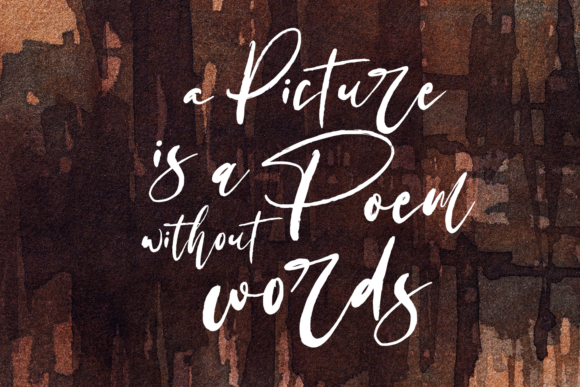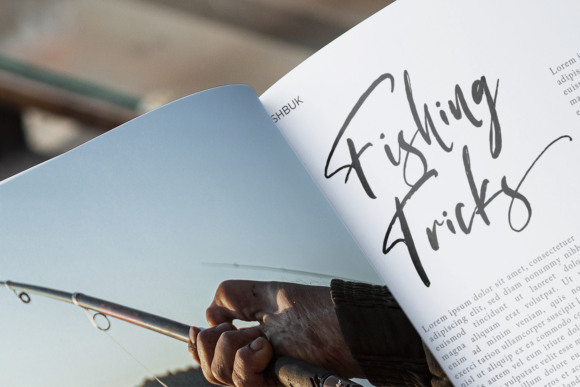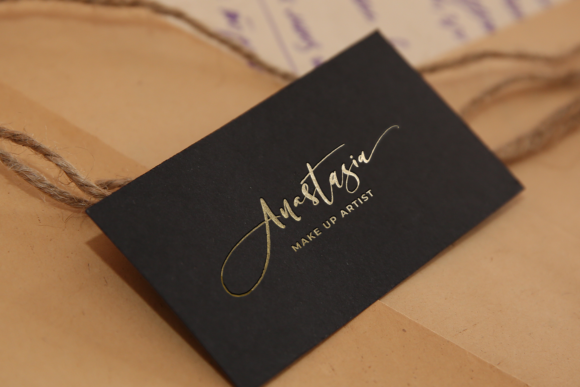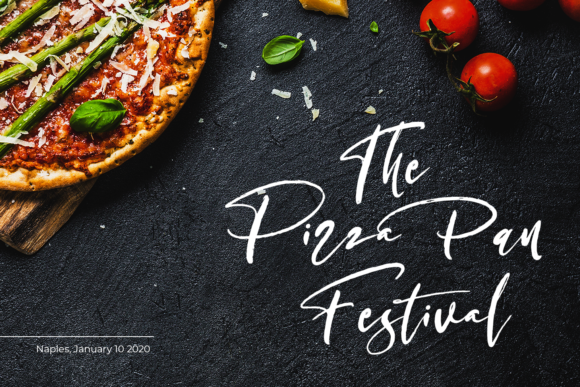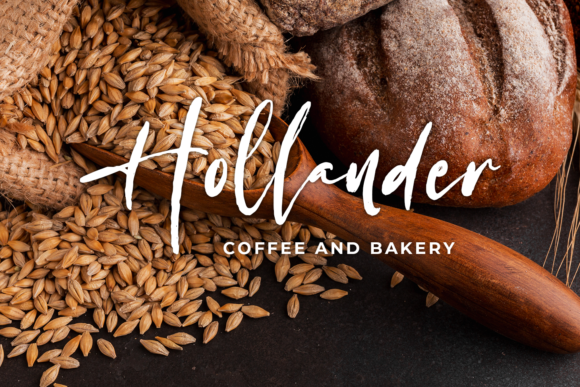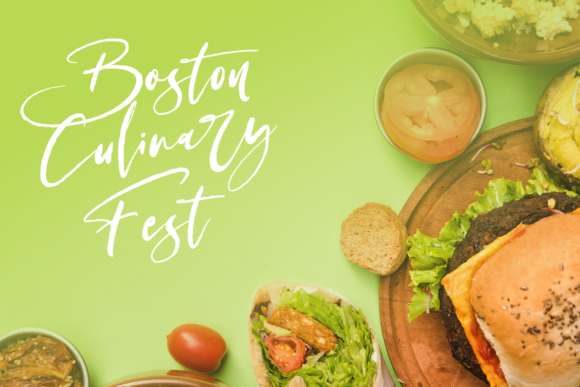
Discover the Elegance of Antariksa Font: A Sophisticated Calligraphy Script
In the world of typography, few fonts manage to convey a sense of sophistication and elegance as effortlessly as Antariksa Font. This stunning calligraphy script is designed to elevate your designs with its beautiful swashes and gorgeously rich lines, making it an ideal choice for crafters and designers looking to add a touch of luxury to their work.
What Makes Antariksa Font Stand Out?
Antariksa Font is not just another calligraphy script; it’s a masterpiece that combines classic elegance with modern flair. Here are some of its standout features:
- Beautiful Swashes: The font boasts intricate swashes that add a decorative touch to your text, making it perfect for titles, headings, and any design element you want to highlight.
- Gorgeously Rich Lines: The lines in Antariksa Font are meticulously crafted to give your text a rich, premium feel that commands attention.
- Sophisticated Aesthetic: The overall design of the font exudes sophistication, making it suitable for high-end branding, luxury packaging, and elegant stationery.
Exploring the Styles of Antariksa Font
Antariksa Font offers two distinct styles: Regular and Slant. This versatility allows designers to experiment with different looks and applications, ensuring that the font can be adapted to suit various design needs.
Regular Style
The Regular style of Antariksa Font is perfect for designs that require a classic, upright look. It’s ideal for:
- Formal invitations and event branding
- Luxury product packaging
- Elegant stationery and letterheads
Slant Style
The Slant style adds a dynamic, modern twist to the classic elegance of the Regular style. It’s great for:
- Creative and contemporary branding
- Artistic projects and portfolios
- Trendy fashion and beauty designs
Why Choose Antariksa Font for Your Design?
Choosing Antariksa Font for your design project comes with numerous benefits:
- Versatility: With two styles to choose from, you can create a wide variety of designs without needing multiple fonts.
- Elegance: The font’s sophisticated look is sure to elevate your designs and make them stand out.
- Readability: Despite its decorative nature, Antariksa Font maintains a high level of readability, making it suitable for both headings and body text.
Tips for Using Antariksa Font Effectively
To get the most out of Antariksa Font, consider the following tips:
- Pair with Simpler Fonts: For body text, pair Antariksa Font with a simpler, sans-serif font to create visual contrast and enhance readability.
- Experiment with Swashes: Don’t be afraid to experiment with the swashes to add a unique touch to your designs.
- Adjust Line Spacing: Adjust the line spacing to ensure that your text is easy to read and visually appealing.
Antariksa Font is a powerful tool for designers and crafters looking to add a touch of sophistication and elegance to their work. With its beautiful swashes, gorgeously rich lines, and two distinct styles, it’s versatile enough to be used in a wide range of design projects. By incorporating Antariksa Font into your design arsenal, you’ll be able to create stunning, high-end designs that are sure to impress.